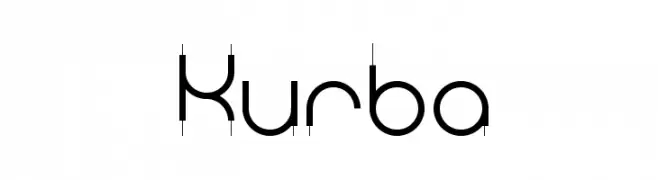
A 3D outline font with geometric precision and modern appeal.
A modern, geometric font with a clean and futuristic design.
A bold, geometric font with a modern and futuristic style.
A futuristic, geometric font with expanded letterforms and a tech-inspired design.
A modern, geometric font with a futuristic and sleek design.
A modern, geometric font with a condensed structure and clean lines.
A bold, geometric font with a futuristic and modern design.
A bold, geometric font with a futuristic and modern style.
A bold, geometric font with a futuristic and modern design.
A futuristic, bold, and slanted font with geometric shapes.
A decorative, double-line font with a modern and geometric style.
A bold, industrial font with geometric, blocky characters.
A futuristic, geometric font with a 3D shadow effect and bold, angular lines.
A futuristic, segmented font with geometric, angular letterforms.
A bold, angular font with strong geometric shapes and exaggerated serifs.
A bold, geometric font with sharp angles and a modern, artistic style.
A bold, high-contrast font with geometric and decorative elements.
A bold, decorative font with geometric cutouts and striking design.
A bold, circular geometric font with a futuristic and abstract style.
A bold, geometric font with Art Deco influences, perfect for striking headlines.
A bold, angular font with a dynamic slant and geometric forms.
A futuristic, geometric font with a bold, condensed style.